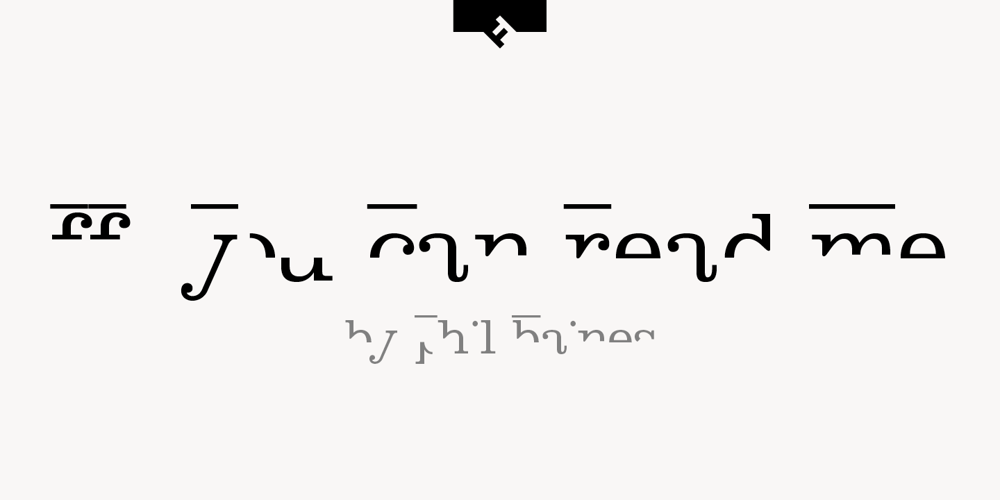
FF You Can Read Me
FF You Can Read Me font
FF You Can Read Me Font Family was designed by Phil Baines and published by FontFont. FF You Can Read Me contains 1 styles and family package options. British type designer Phil Baines created this display FontFont in 1995. The font is ideally suited for festive occasions, editorial and publishing, logo, branding and creative industries as well as poster and billboards. FF You Can Read Me provides advanced typographical support with features such as ligatures and alternate characters. It comes with tabular oldstyle figures.